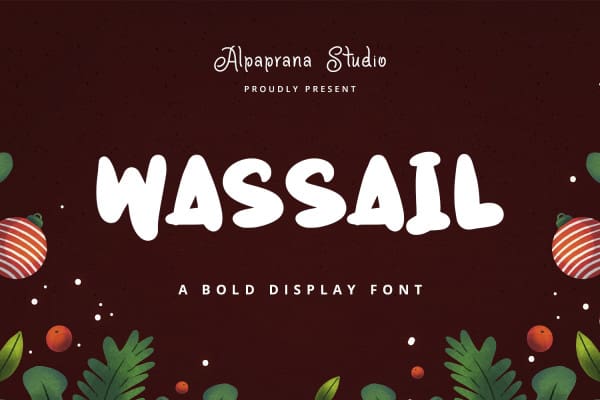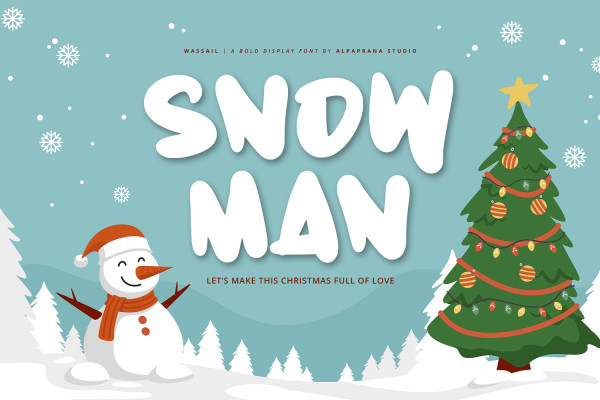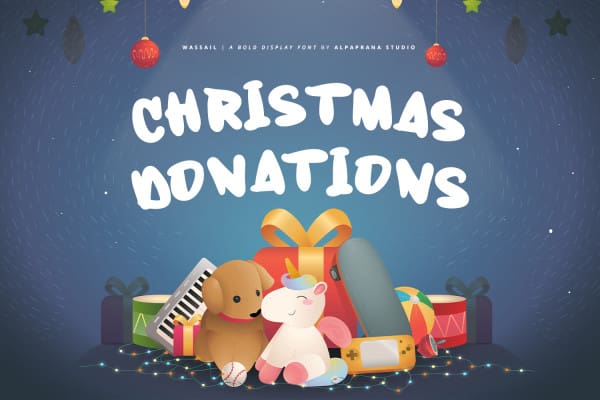
Wassail Display Font
Wassail Display Font is a display font with cute and unique style. It will be perfectly used for Branding, Logo Design, Lettering, Logotype, Clothing, Poster, magazine, packaging, posters, shopping bags, t-shirts, book covers, photography, special events and other design project.